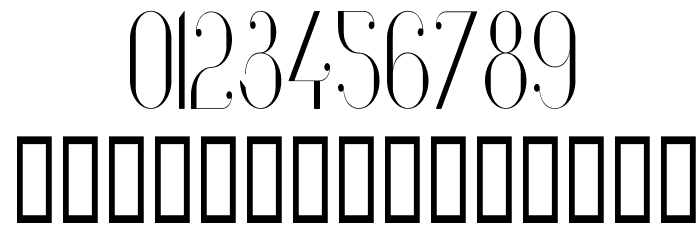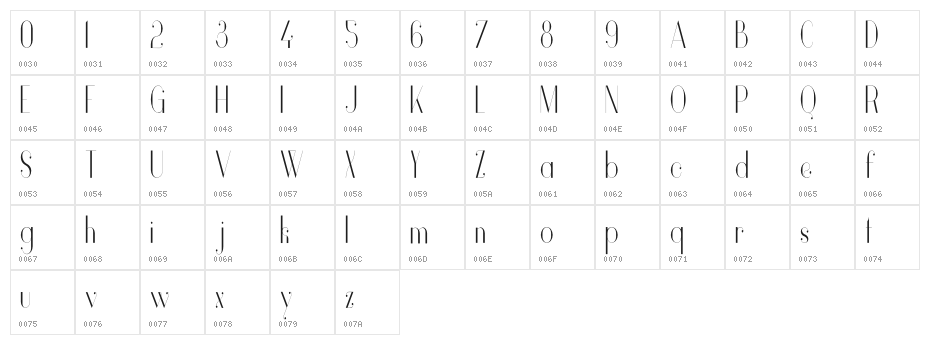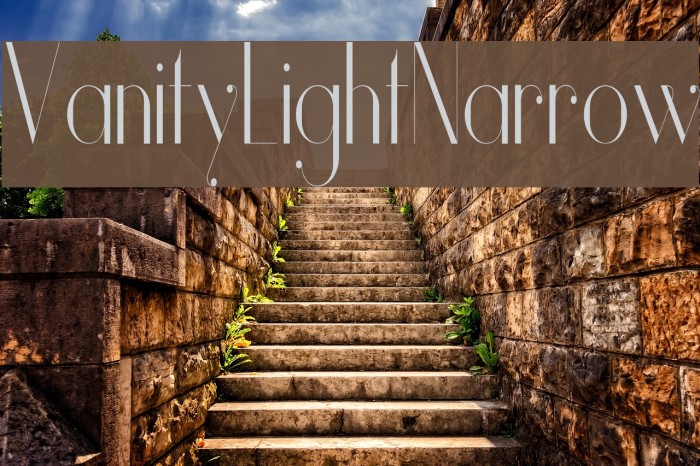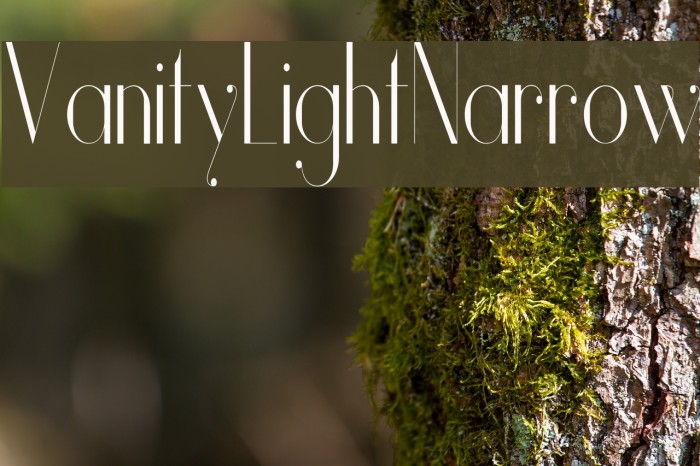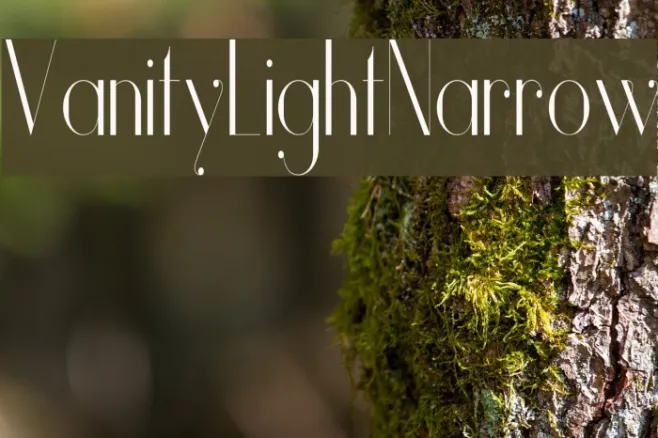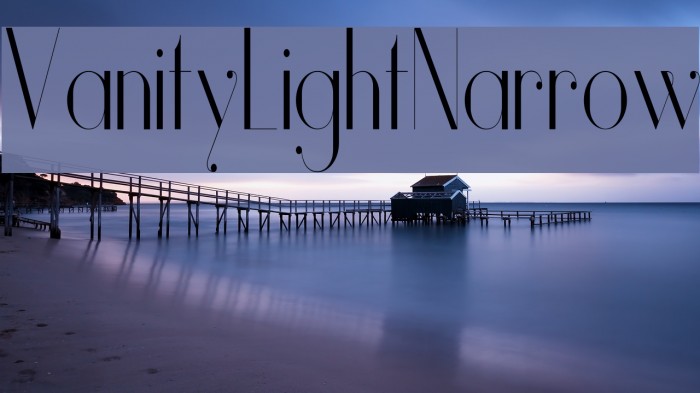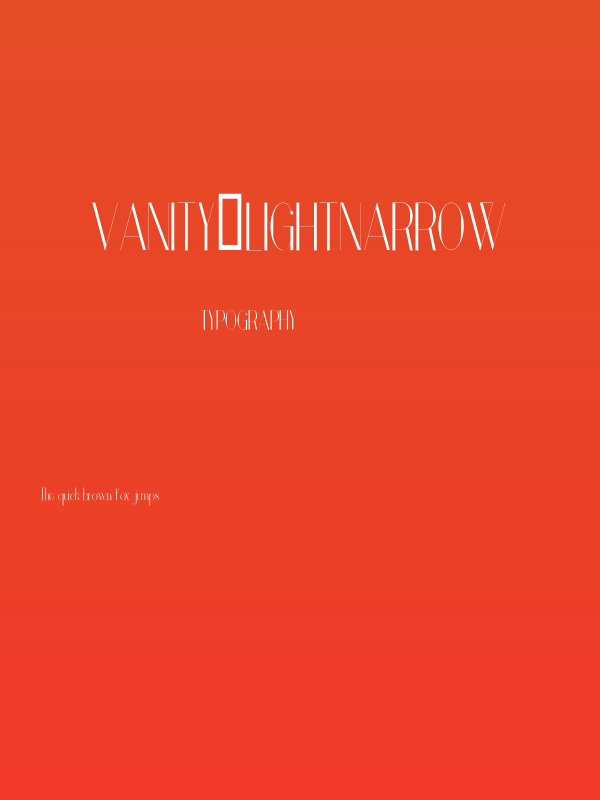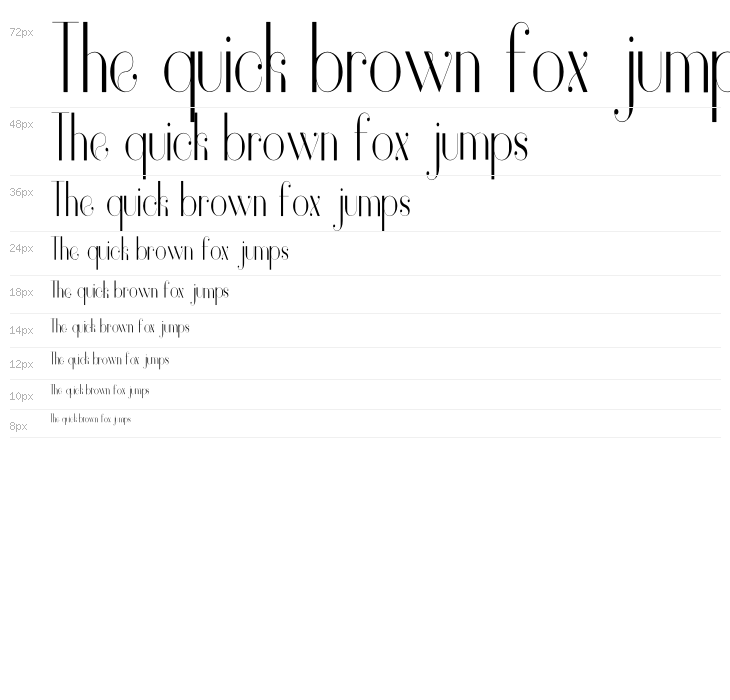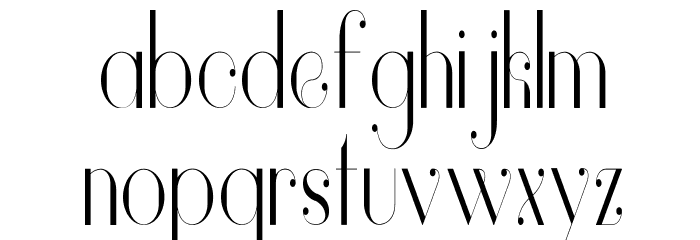
Vanity-LightNarrow Font
This font features a sleek and elegant design with a modern twist. The characters are tall and narrow, giving a sophisticated and refined appearance. The strokes are thin with high contrast, creating a striking visual impact. The uppercase letters are particularly elongated, adding to the font's stylish and contemporary feel. The lowercase letters maintain a consistent narrow width, complementing the uppercase set. The numerals are designed with the same thin strokes, ensuring uniformity across all characters. This font is ideal for projects that require a touch of elegance and modernity.
| Proposed Projects | Ideal for fashion magazines, luxury branding, wedding invitations, and high-end product packaging. |